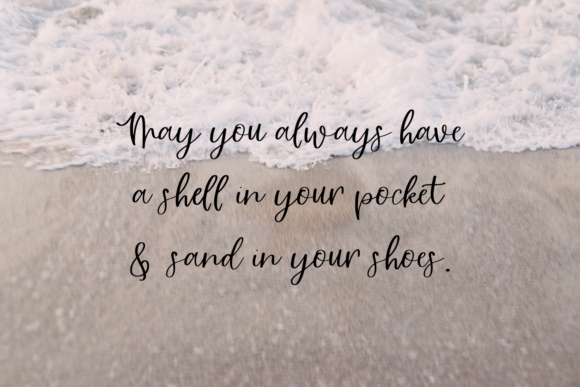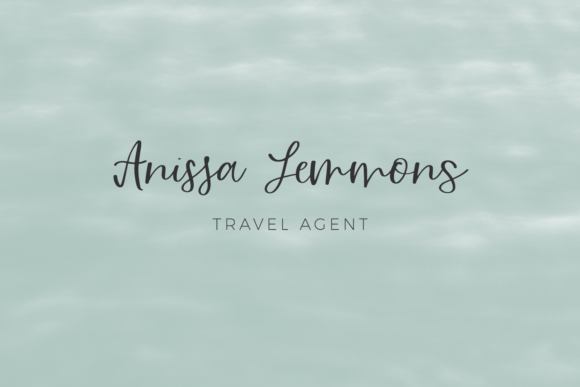
Riviera Mexicana Font
db-ku.com - Script & Handwritten -- Riviera Mexicana feels equally charming and elegant. It looks stunning on wedding invitations, thank you cards, quotes, greeting cards, logos, business cards and every other design which needs a handwritten touch.